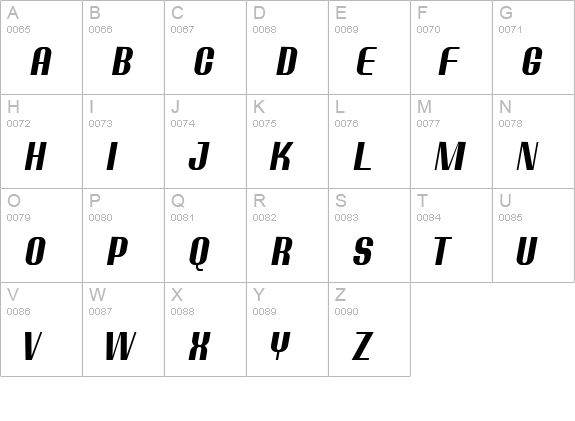
Ptarmigan Condensed Italic Font Details
Ptarmigan Condensed Italic is a distinctive, condensed-width, italic variant in the Ptarmigan typeface family \xE2\x80\x94 well suited to design and typography projects.
Introducing Ptarmigan Condensed Italic font, a sleek and modern typeface perfect for adding a touch of sophistication to your projects. With its elegant and stylish design, this font is sure to make a statement. The condensed italic style gives it a contemporary edge, making it ideal for a wide range of design applications. What makes Ptarmigan Condensed Italic font even more appealing is that it is available for free download at FontsMarket.com. You can easily access this versatile typeface and use it to elevate your designs without breaking the bank. Whether you're working on branding, marketing materials, web design, or any other project, Ptarmigan Condensed Italic font is a fantastic choice that is both professional and eye-catching. Don't miss out on the opportunity to enhance your design projects with this stylish and modern font. Download Ptarmigan Condensed Italic font for free today at FontsMarket.com and take your designs to the next level!